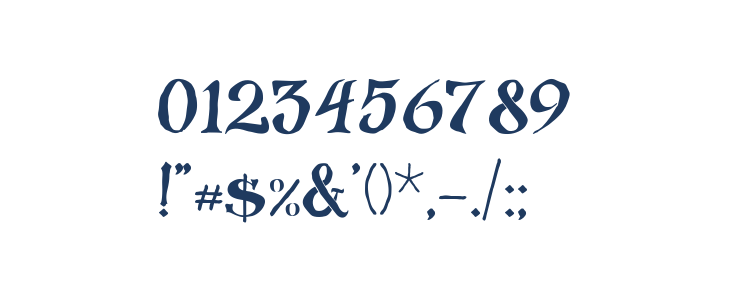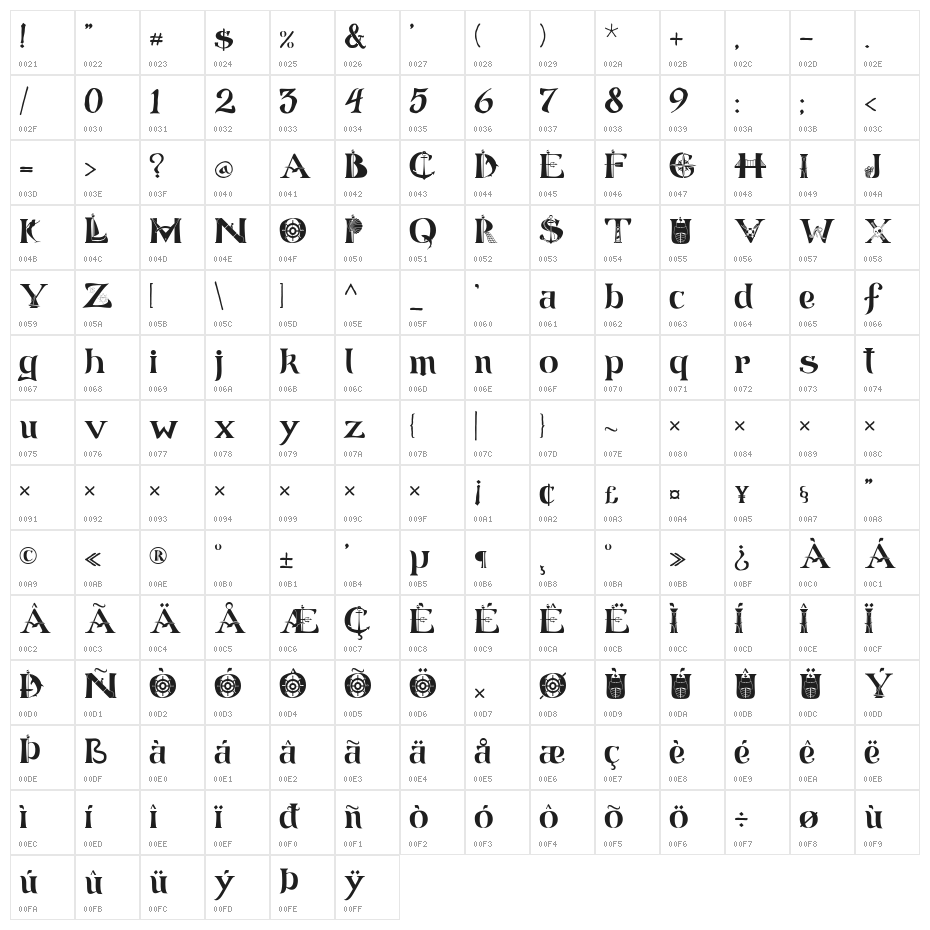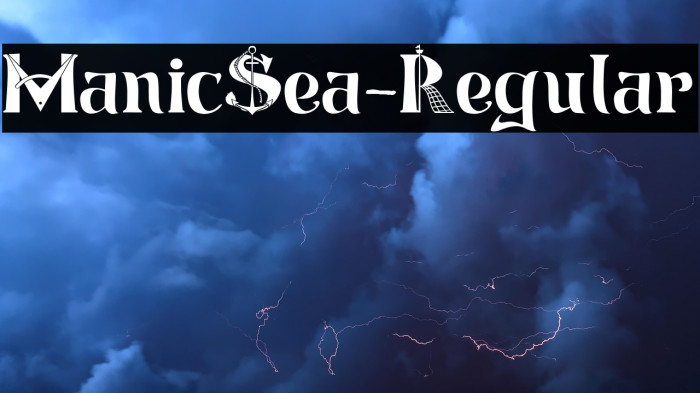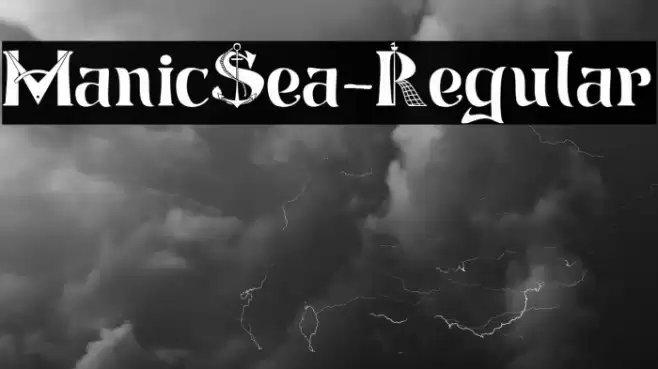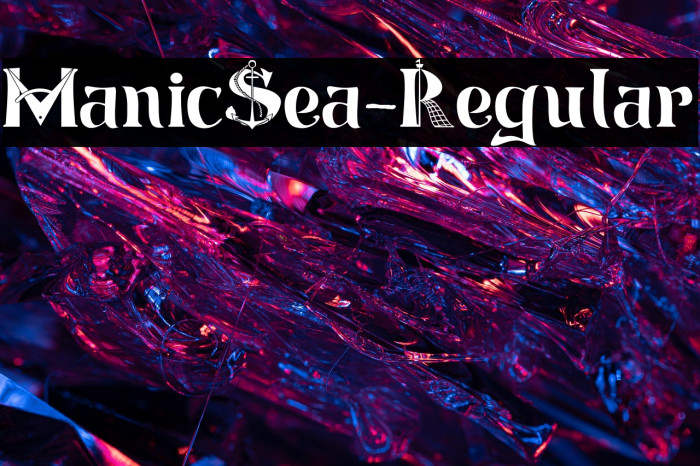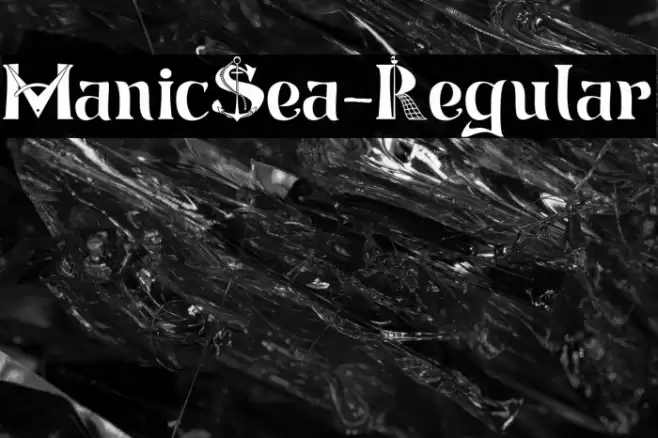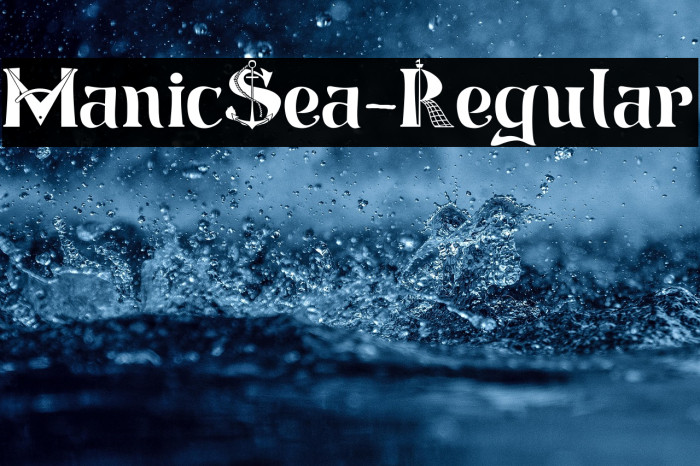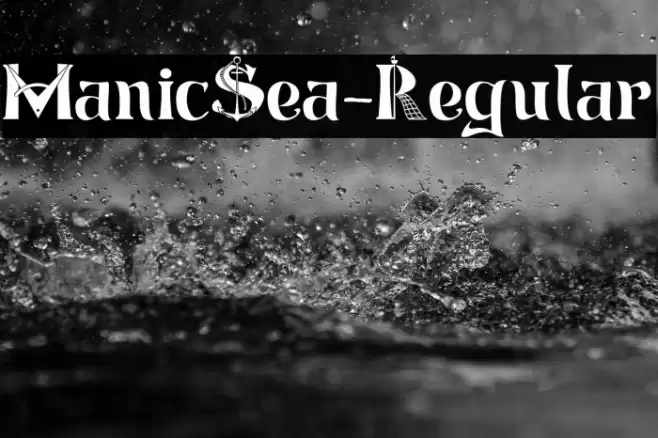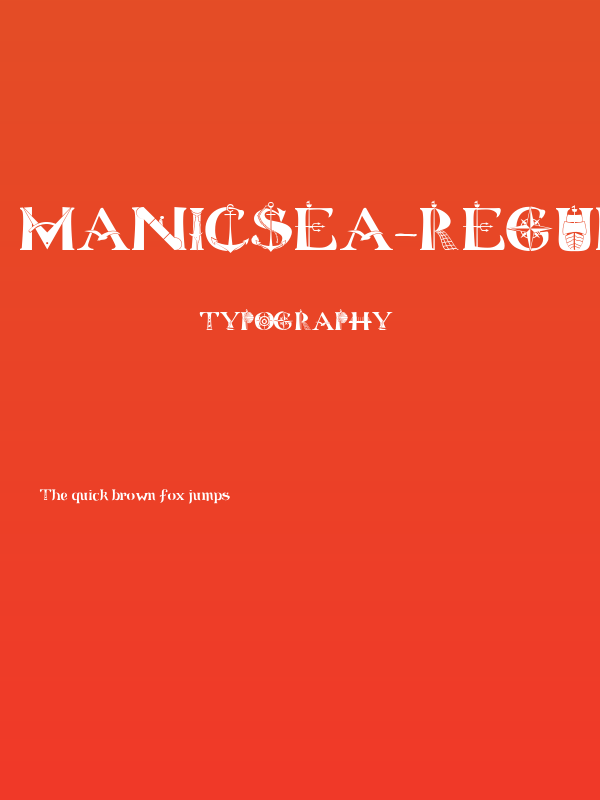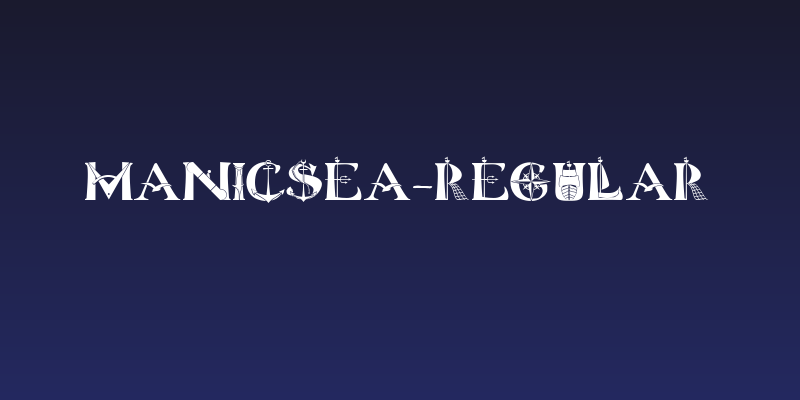
ManicSea-Regular Font
ManicSea-Regular Description
This font is a highly decorative and artistic typeface, featuring intricate details and unique embellishments within each character. The uppercase letters incorporate various nautical and mechanical elements, giving them a whimsical and adventurous feel. The lowercase letters maintain a more traditional serif style, yet still carry a playful and slightly irregular form. Numbers and special characters continue the theme with bold, expressive strokes and creative designs. This font is perfect for projects that require a touch of fantasy or a maritime theme, offering a distinct and eye-catching appearance.
MANICSEA-REGULAR UPPERCASE
MANICSEA-REGULAR LOWERCASE
MANICSEA-REGULAR OTHER CHARS